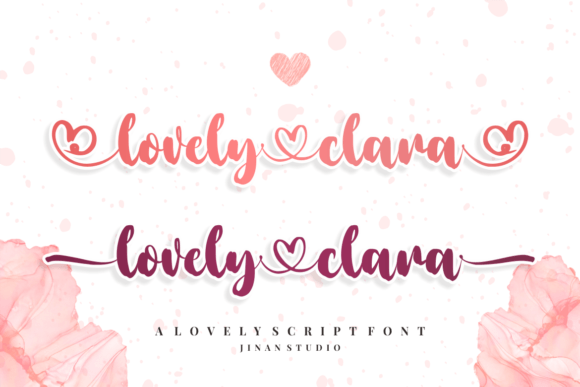
Step into a world of romance and elegance with Lovely Clara Font, the exquisite handwritten script font that adds a touch of charm to every design. Crafted with the utmost care and attention to detail, Lovely Clara is not just a font; it's an expression of love and beauty.
Picture this: You're designing a wedding invitation, and you want the words to dance off the page with joy and romance. Lovely Clara is your perfect partner. Its flowing lines and delicate curves create an enchanting atmosphere, making your invitation an unforgettable keepsake.
Or perhaps you're working on a greeting card for a special someone. With Lovely Clara, your message will carry a heartfelt touch, conveying your emotions with grace and elegance. Its whimsical style adds a personal touch, making your card truly one-of-a-kind.
But Lovely Clara's versatility doesn't stop there. Its romantic charm extends to headlines, logos, branding, and any project where you seek a touch of elegance. Its timeless beauty transcends trends, ensuring that your designs remain captivating and alluring for years to come.
With Lovely Clara, you're not just downloading a font; you're embracing a world of creativity and charm. Let imagination soar as you explore the endless possibilities of this captivating script font. Don't settle for ordinary—choose Lovely Clara and experience the magic of handwritten elegance.